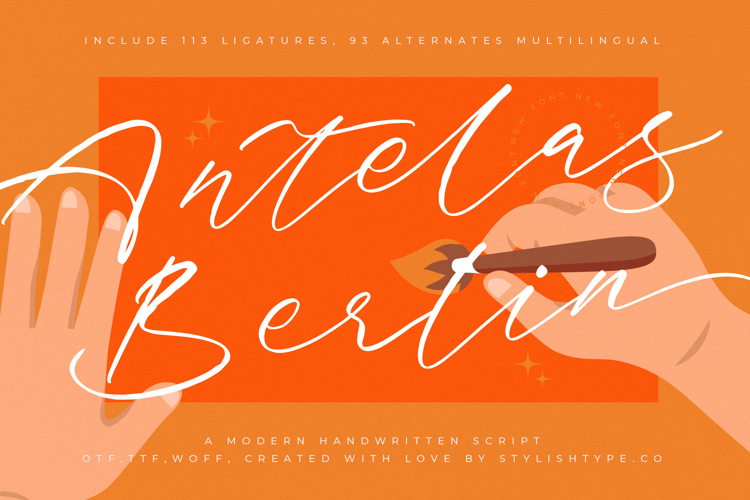
Antelas Berlin - Modern Handwritten Script
Antelas Bertin is a modern handwritten script that combines natural handwritten charm with contemporary elegance. Its smooth flowing strokes, delicate ligatures, and stylish alternates make it a versatile font for both creative and professional projects. With 113 ligatures and 93 alternates, Antelas Bertin gives designers the freedom to create unique and expressive lettering compositions that feel authentic and artistic.
This font excels in branding. Perfect for logos, boutique shops, artisan labels, fashion brands, and lifestyle products, Antelas Bertin communicates sophistication and creativity. Its handwritten quality ensures that branding projects feel stylish, and memorable, making it a strong choice for modern businesses.
In editorial and publishing, Antelas Bertin brings refinement and personality. Magazines, book covers, creative zines, and invitations benefit from its graceful rhythm and natural flow. It creates editorial layouts that balance elegance with legibility, ensuring designs capture attention while remaining readable.
For web typography, this handwritten script adapts beautifully across blogs, websites, online shops, and social media platforms. Its organic handwritten look ensures that digital media projects feel authentic, stylish, and professional, helping brands connect more with their audiences.